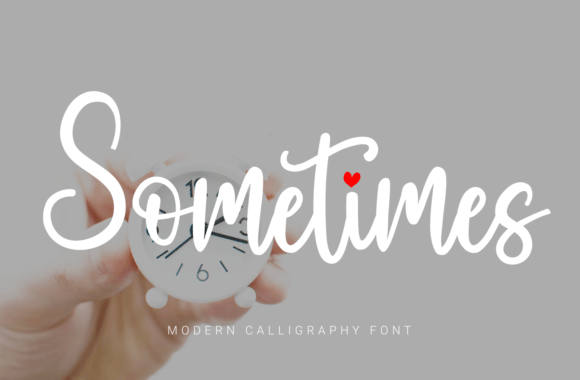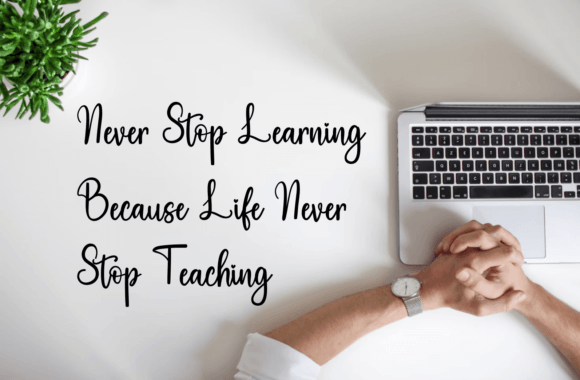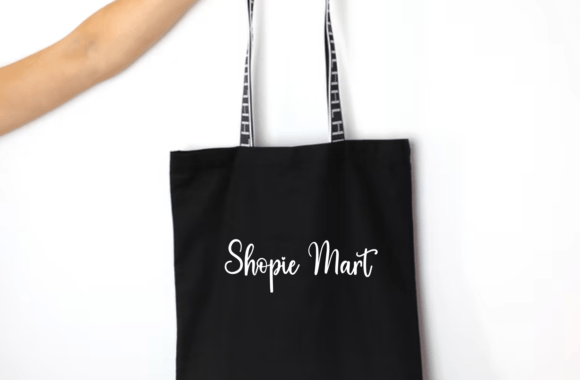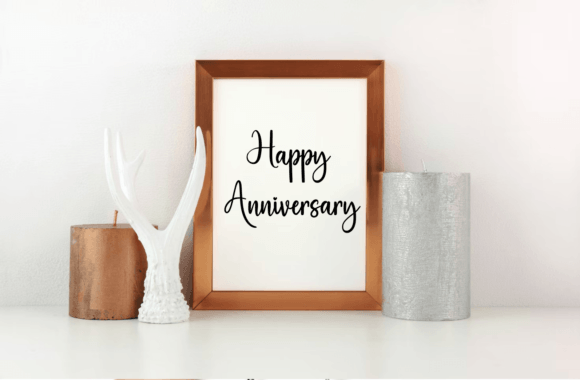
Sometimes Font
About Sometimes Font
1. **Sometimes:**
“Sometimes” is described as a delicate, elegant, and flowing handwritten font. The emphasis is on its beautiful and well-balanced characters, making it suitable for a diverse range of designs. The font is suggested to add a lively touch to your most creative ideas.
In summary, both “Sometimes” and “Witchunter” appear to be elegant and versatile handwritten fonts with well-balanced characters, suitable for various design projects. Adding these fonts to your creative endeavors is expected to enhance and bring life to your ideas.